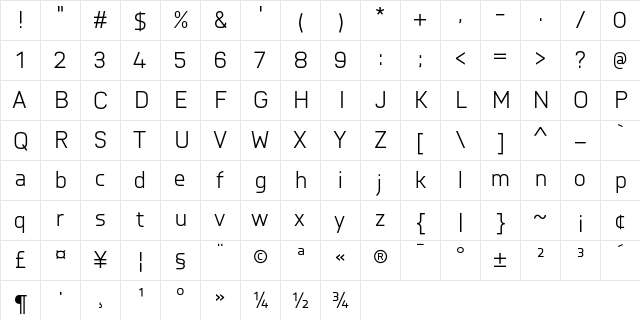
Nairi Normal Font Preview
Nairi Normal
Nairi Normal Font Details
| Foundry | Gia Bagratuni |
| Designer | Gia Bagratuni |
Design Context for Nairi Typeface
Nairi offers clean, dependable letterforms without strong stylistic allegiance, making it a practical choice for designers who need flexibility.